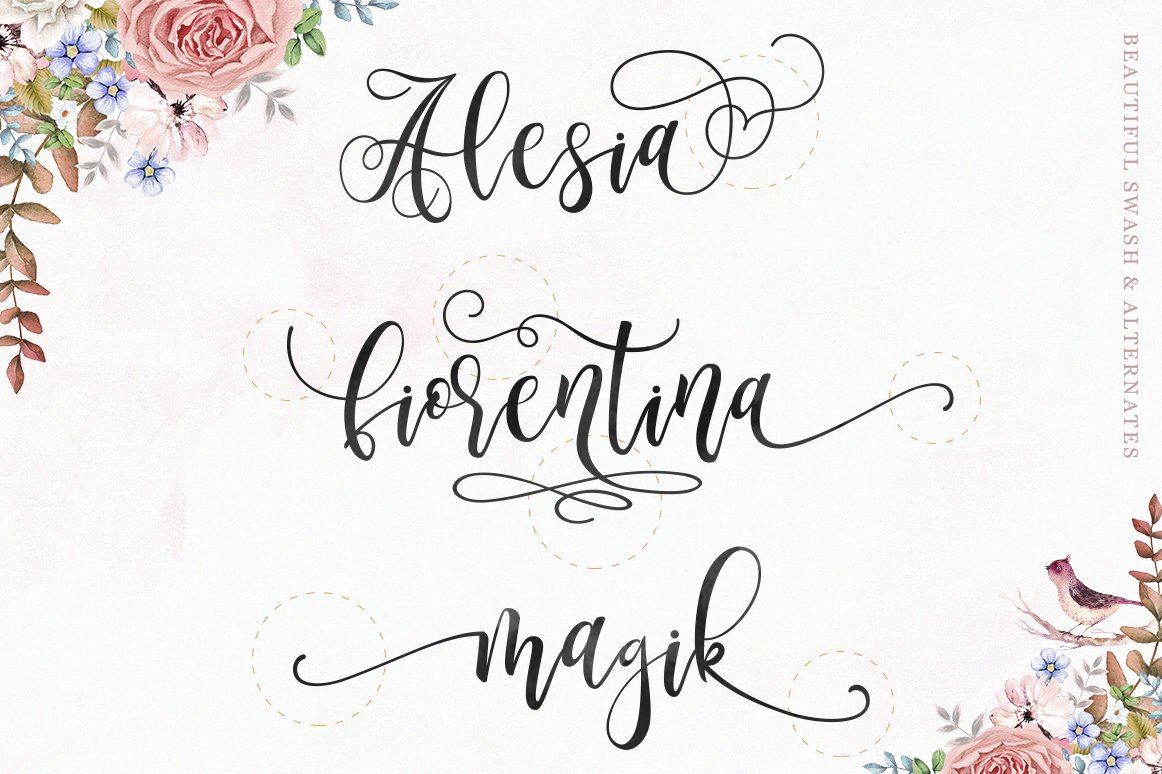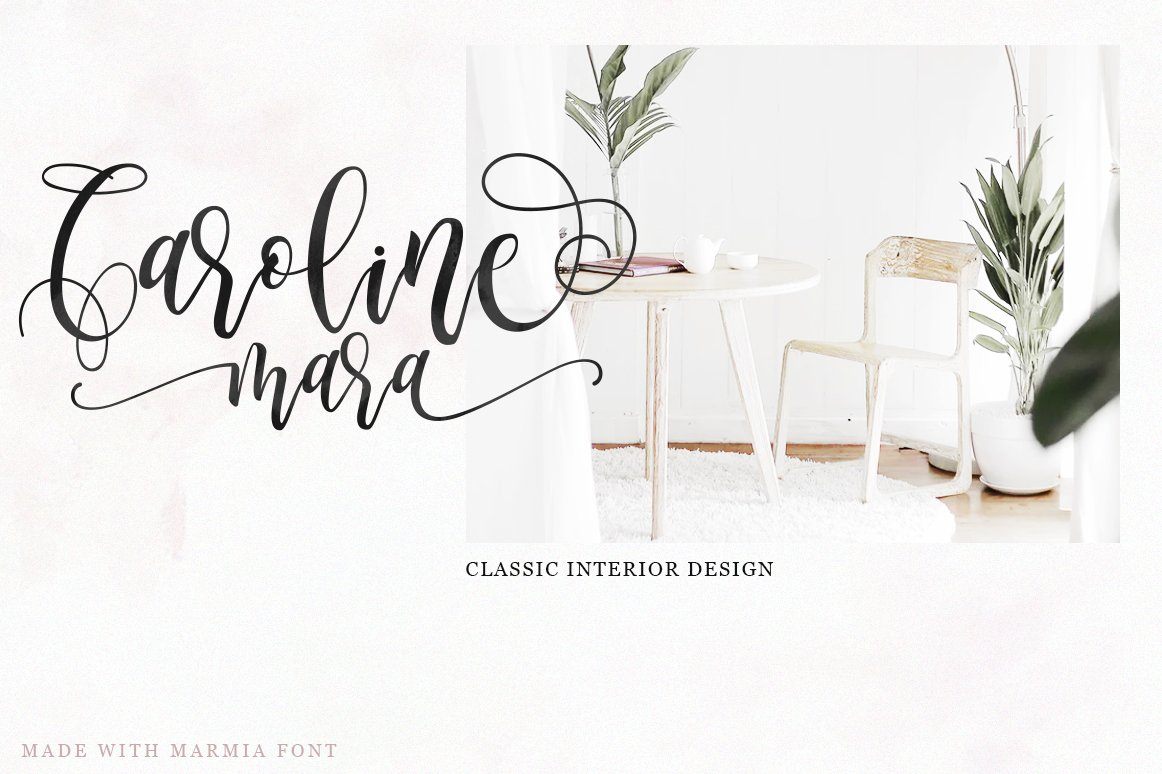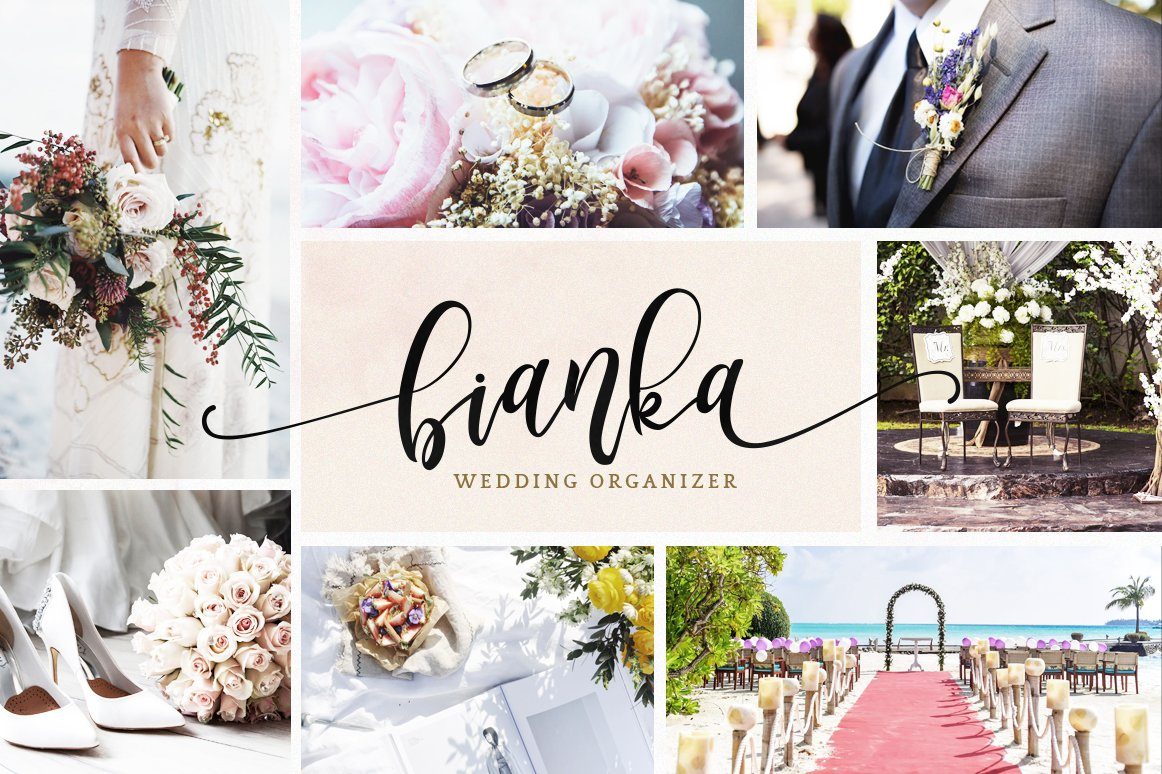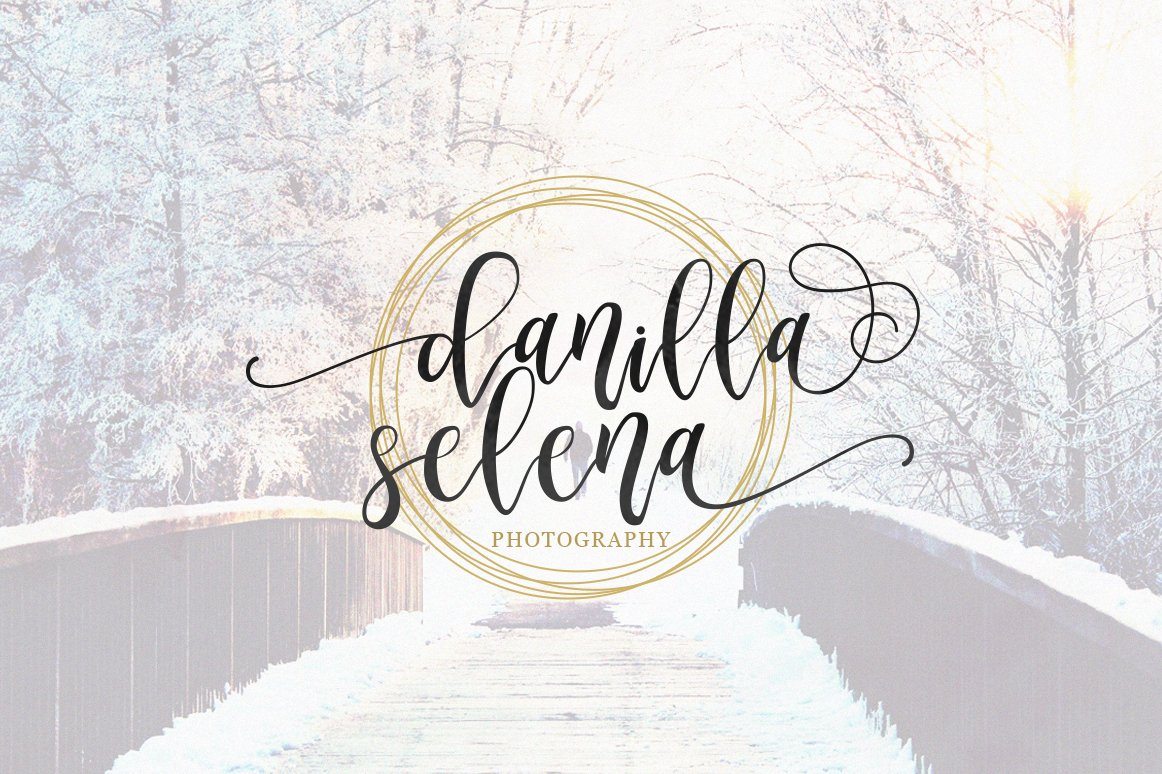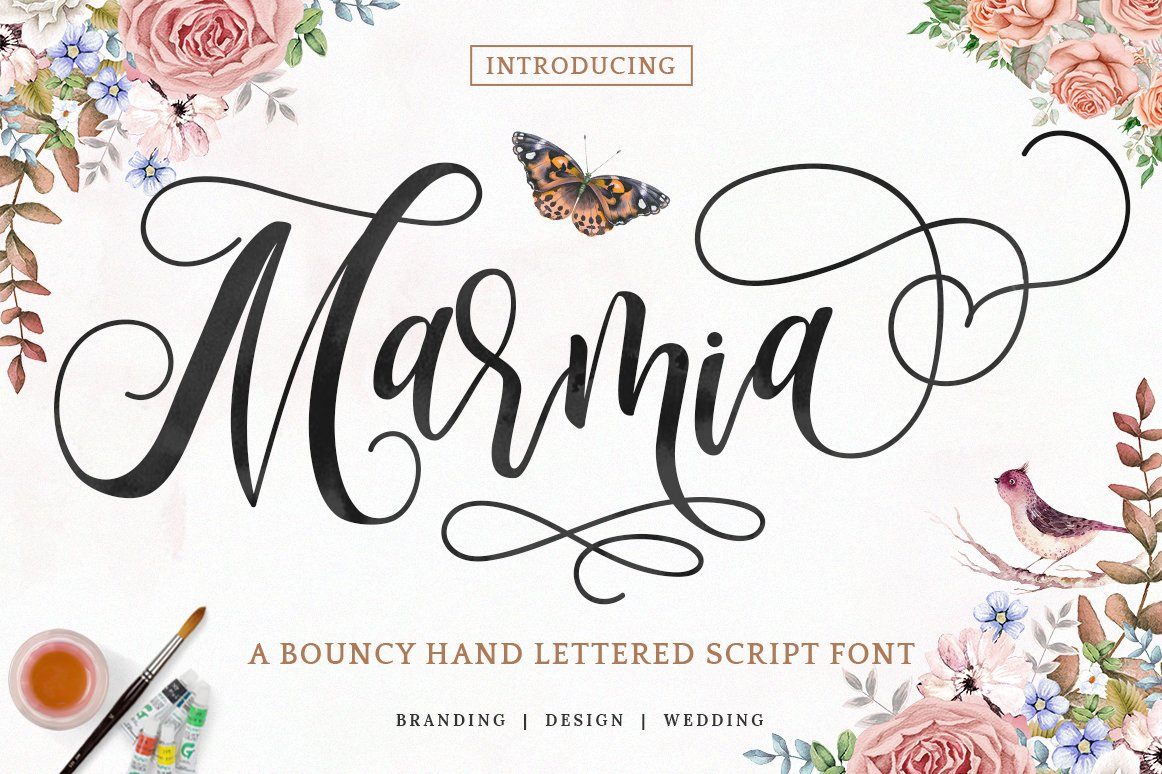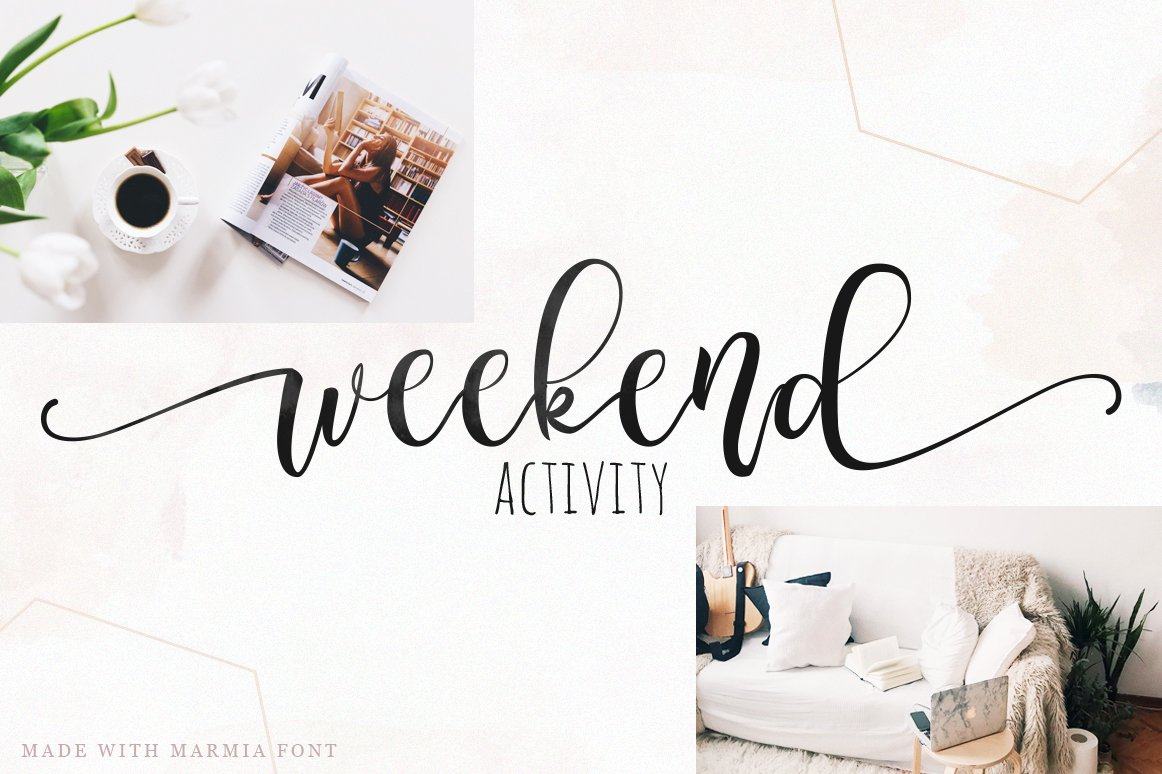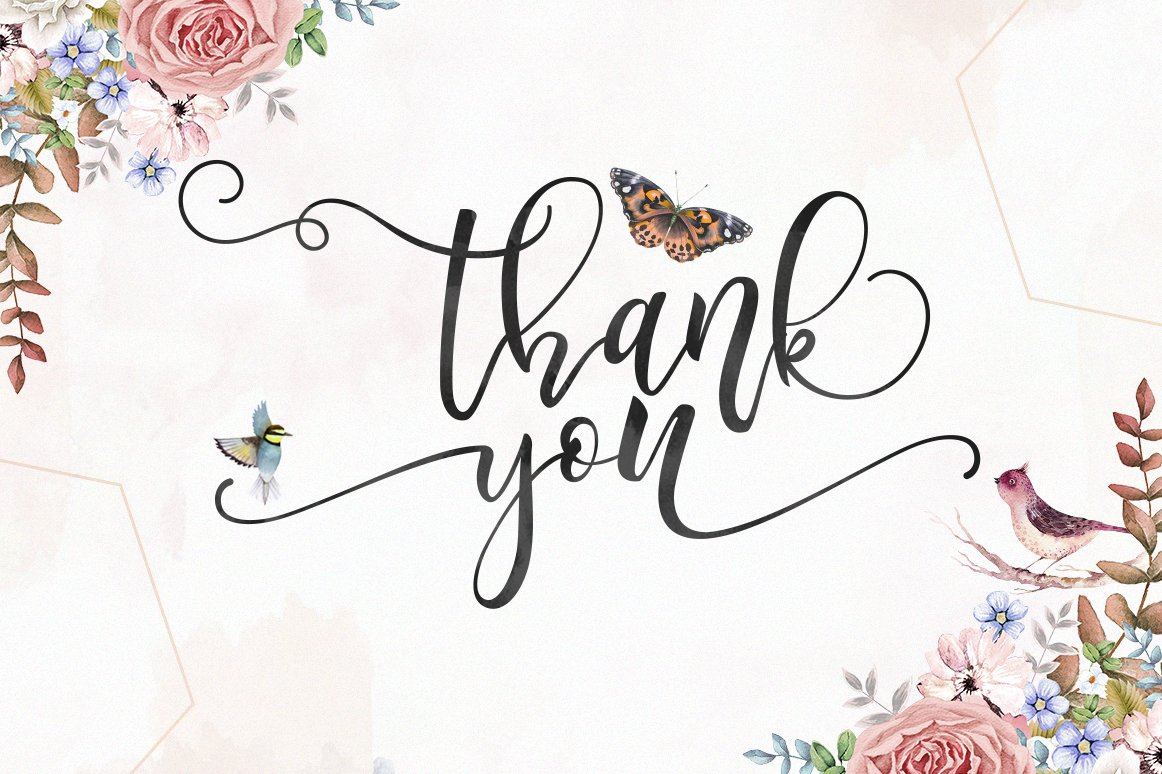
Marmia Script
About Marmia Script
Say hello to Marmia! An elegant calligraphy font. Perfect for making elegant stylish statements – or adding a touch of class to your designs. This script has a multitude of natural-looking ligatures and alternate characters in its OpenType features – making the font look as close to natural handwriting as possible. Marmia is perfect for many different projects such as logos & branding, invitation, stationery, wedding designs, social media posts, advertisements, product packaging, product designs, label, photography, watermark, special events or anything. What you get: Marmia.ttf and Marmia.otf Marmia includes capital and lowercase letters, alternates, and Ligatures Numbers + punctuation Foreign language support I highly recommend using a program that supports OpenType features and Glyphs panels such as Adobe Illustrator, Adobe Photoshop CC, Adobe InDesign, or CorelDraw, so you can see and access all Glyph variations. We hope you enjoy the font. Thank You.